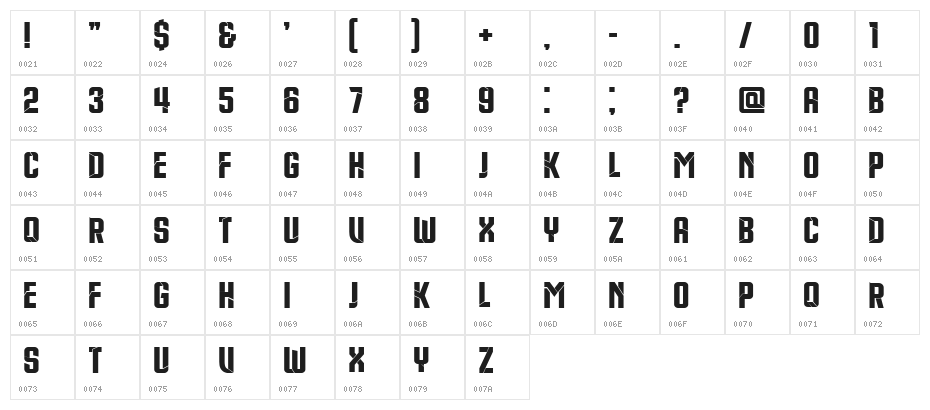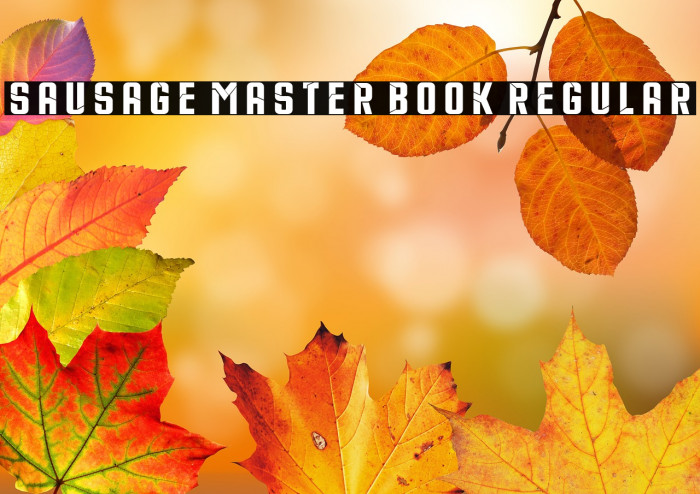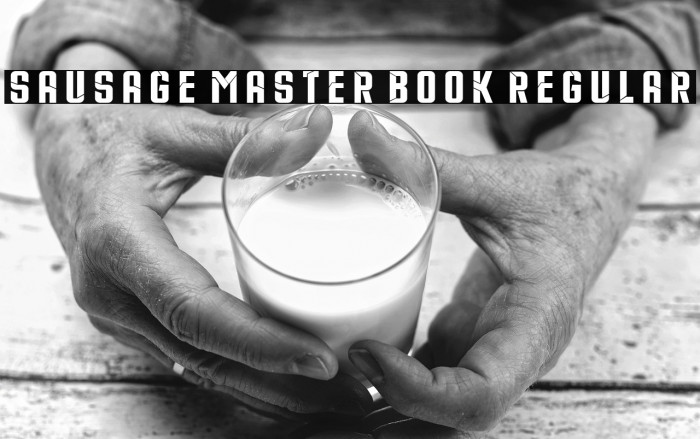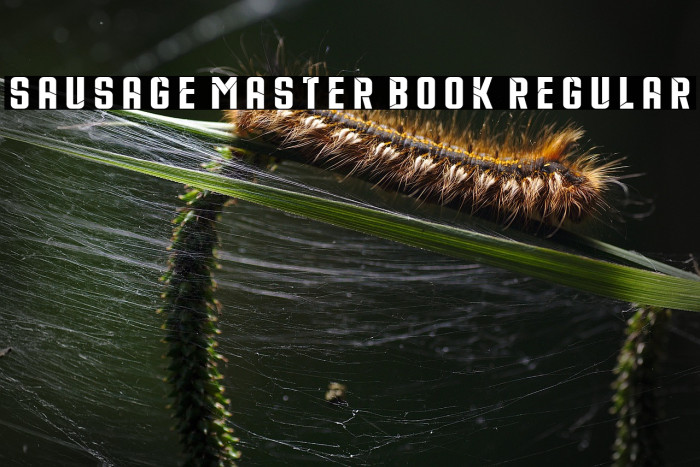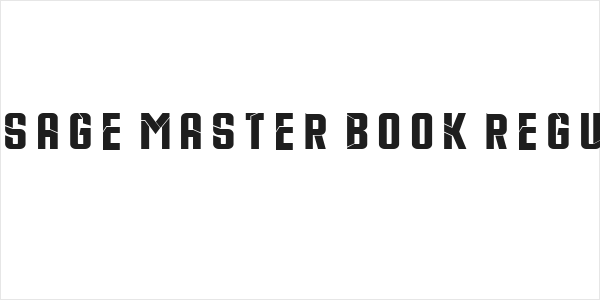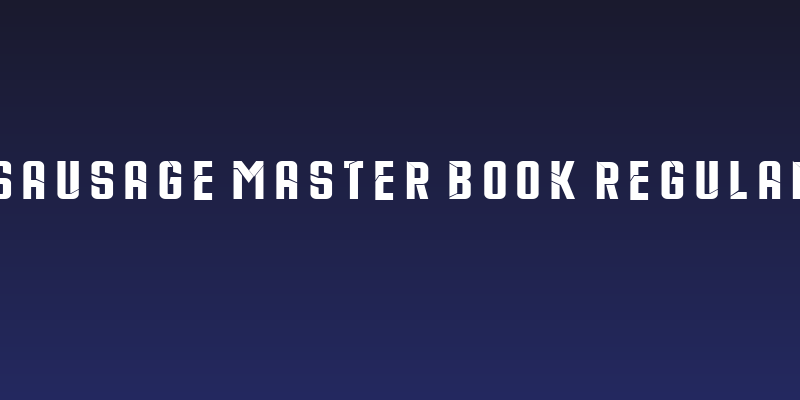
Sausage Master Book Regular Font
Sausage Master Book Regular Description
This font features a bold, geometric design with a modern twist. Each character is constructed with sharp angles and clean lines, creating a sense of movement and dynamism. The unique cut-out sections within the letters add an intriguing visual element, making it stand out in any design. The uppercase and lowercase letters maintain a consistent style, while the numerals and special characters complement the overall aesthetic. This font is ideal for projects that require a strong, impactful presence.
| Proposed Projects | Ideal for branding, posters, headlines, and any design needing a strong visual impact. |